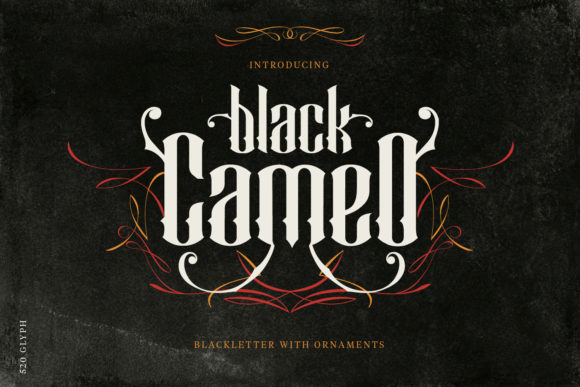
In a tapestry of creativity, let your designs dance to the rhythm of Black Cameo, a blackletter font that ignites the spirit of artistry. With its captivating curves and striking presence, Black Cameo transcends the boundaries of ordinary typography, beckoning you to embark on a journey of visual enchantment.
Crafted with meticulous attention to detail, Black Cameo embodies the essence of timeless elegance. Its intricate embellishments evoke a sense of nostalgia, while its modern interpretation lends a touch of innovation, making it the perfect choice for projects that demand both tradition and originality.
Unleash your imagination and let Black Cameo grace your invitations, posters, logos, and branding materials. With its ability to command attention and leave a lasting impression, Black Cameo will transform your creative endeavors into masterpieces destined to captivate audiences.
Enter the realm where artistry and expression collide, where Black Cameo reigns supreme. Let its bold strokes and enchanting aura elevate your designs to new heights. Embrace the allure of Black Cameo and witness the transformation of your creative vision into a symphony of visual delight.